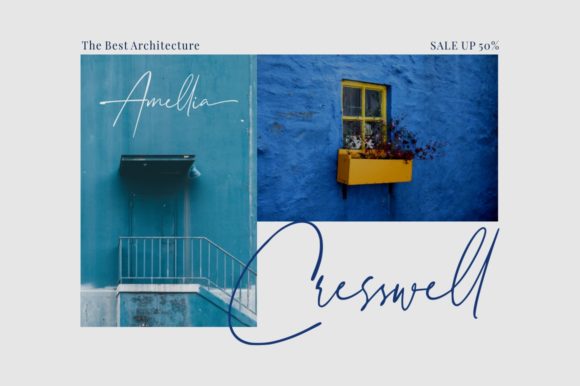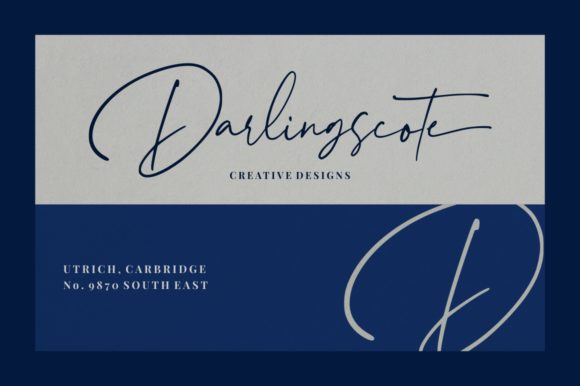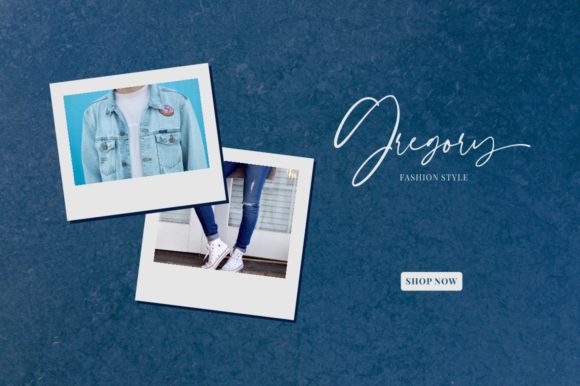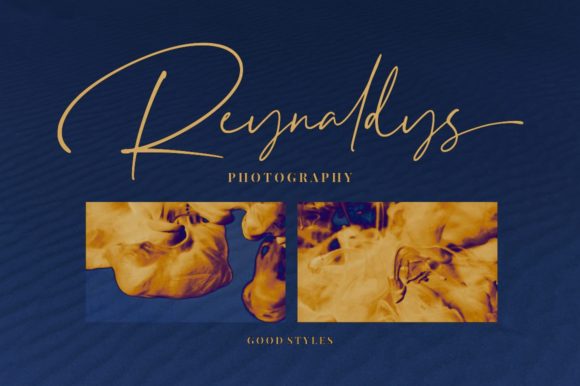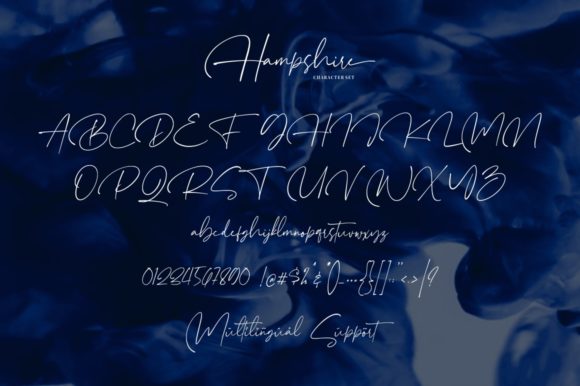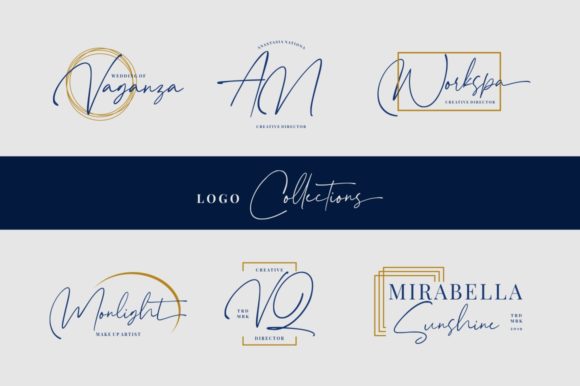
Hampshire Font: Elevate Your Designs with a Touch of Elegance
In the world of typography, fonts play a crucial role in bringing designs to life. Among the numerous font styles available, script fonts have gained immense popularity for their elegance and sophistication. One such font that has been making waves in the design community is the Hampshire Font. This modern and gorgeous script font has the power to transform any design idea into a true standout. In this article, we’ll explore the unique charm of the Hampshire Font and why it’s a must-have for designers and crafters.
The Allure of Hampshire Font
Hampshire Font is a stunning script font that boasts a distinctive charm. Its elegant and fluid strokes make it perfect for a wide range of design applications, from branding and advertising to packaging and digital media. The font’s unique character lies in its beautiful swashes and refined letterforms, which add a touch of sophistication to any design.
Key Features of Hampshire Font
- Modern and Elegant Design: Hampshire Font features a modern and elegant design that is sure to impress. Its clean lines, beautiful swashes, and refined letterforms make it perfect for designs that require a touch of sophistication.
- Highly Versatile: This font is highly versatile and can be used for a wide range of design applications, including branding, advertising, packaging, and digital media.
- Easy to Read: Despite its elegant design, Hampshire Font is easy to read, making it perfect for body text and headlines.
- Multilingual Support: The font supports multiple languages, making it a great choice for designers who work with international clients.
Why Designers and Crafters Love Hampshire Font
Designers and crafters love Hampshire Font for its unique charm and versatility. Here are some reasons why:
- Adds a Touch of Elegance: Hampshire Font adds a touch of elegance to any design, making it perfect for designers who want to create sophisticated and high-end designs.
- Perfect for Branding and Advertising: The font’s elegant design and easy readability make it perfect for branding and advertising applications.
- Great for Crafting and DIY Projects: Hampshire Font is also great for crafting and DIY projects, such as making invitations, cards, and other paper crafts.
How to Use Hampshire Font in Your Designs
Using Hampshire Font in your designs is easy. Here are some tips:
- Pair it with Other Fonts: Pair Hampshire Font with other fonts to create a unique and interesting design.
- Experiment with Different Sizes: Experiment with different font sizes to create visual interest and hierarchy in your design.
- Use it for Headlines and Body Text: Use Hampshire Font for both headlines and body text to create a cohesive and elegant design.
In conclusion, Hampshire Font is a modern and gorgeous script font that can elevate any design idea into a true standout. Its unique charm, versatility, and elegance make it a must-have for designers and crafters. Whether you’re working on a branding project, advertising campaign, or crafting and DIY project, Hampshire Font is sure to inspire and impress. So why wait? Get inspired by the unique charm of Hampshire Font and take your designs to the next level!